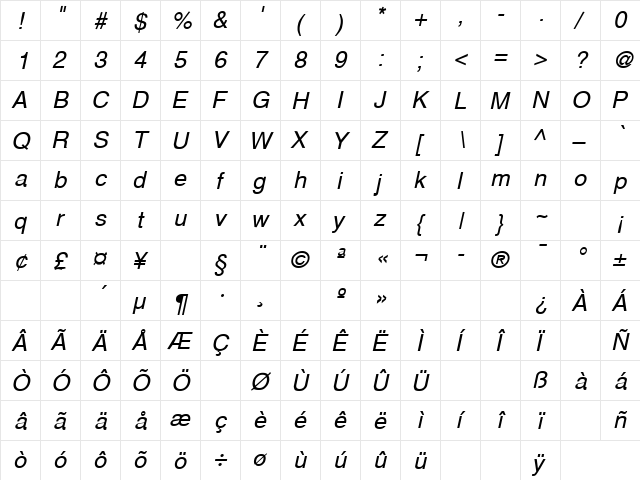
NewZurica Italic
Design Context for NewZurica Typeface
NewZurica offers clean, dependable letterforms without strong stylistic allegiance, making it a practical choice for designers who need flexibility. The dynamic lean of this cut emphasises speed and emphasis in any layout.
Pro Tip: Try NewZurica for annotation and caption copy alongside an upright companion — the contrast in angle creates a dynamic but ordered typographic system.